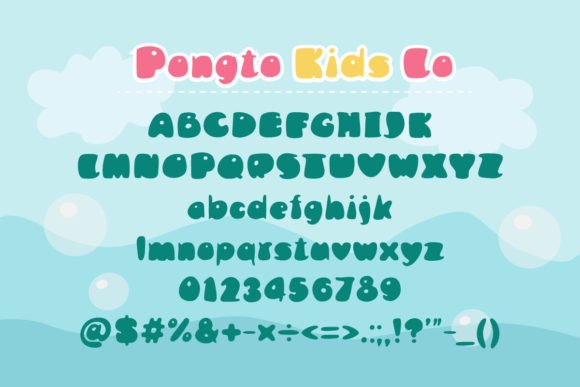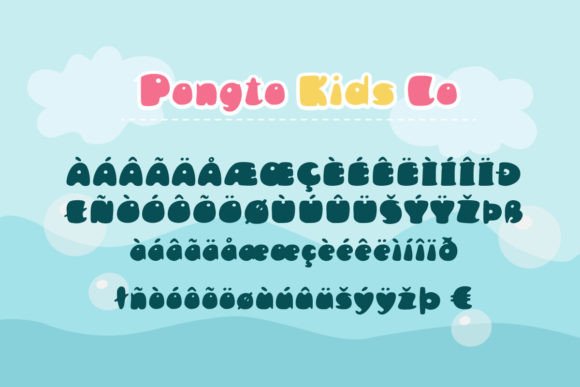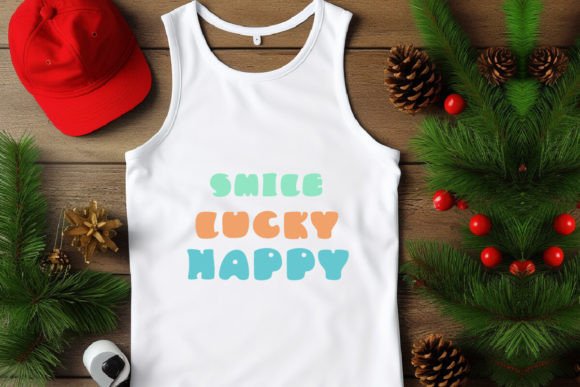
Introduction to Pongto Kids Lo Font
Who hasn’t been stuck on a design project, staring at a blank page, waiting for that perfect spark to strike? For designers, the quest for the perfect font can be a daunting task. But what if you stumbled upon a font that was not only visually stunning but also incredibly versatile? Enter the Pongto Kids Lo Font – a cool, cute, and fun display font that’s sure to bring a smile to your face.
Whether you’re working on a greeting card, a children’s theme design, or a logo, Pongto Kids Lo Font is the perfect addition to your design resource arsenal. With its transparent background and high-quality design, this font is a game-changer for any creative project. And the best part? It’s available for free download, making it an invaluable resource for designers of all levels.
Pongto Kids Lo Font
- High-quality, free font designed specifically for kids and creative projects.
- Unique characteristics include playful letterforms and whimsical details, perfect for children’s books, educational materials, and other creative projects.
Honest Review: Pongto Kids Lo Font
I recently came across the Pongto Kids Lo Font, and I must say it’s a great addition to any designer’s collection. This font is perfect for creating a playful and fun atmosphere in your creative project.
What works well: ✨ The font has a high quality and modern design that makes it suitable for a wide range of applications, from children’s books to branding materials. The transparent background also makes it easy to use and customize. I also appreciate that it’s available for free download, making it a great resource for designers on a budget.
Some of the key features of the Pongto Kids Lo Font include:
- High quality and modern design
- Perfect for children’s books, branding materials, and other creative projects
⚠️ However, I do find that the font may not be suitable for formal or professional applications, as it has a playful and casual tone. Additionally, some designers may find the font to be too bold or eye-catching, which may not be desirable in all situations.
Overall, I’m impressed with the Pongto Kids Lo Font, and I would definitely recommend it to designers looking for a fun and modern font for their creative project.
Pongto Kids Lo Font is a free design resource ideal for creative projects requiring a playful, kid-friendly font. This high-quality font features a transparent background, making it easy to integrate into various design elements.
To maximize the use of Pongto Kids Lo Font, try combining it with other design elements, such as colorful illustrations or fun graphics.
Some common use cases for Pongto Kids Lo Font include:
- Designing children’s party invitations or banners
- Creating educational materials, such as worksheets or posters
- Developing branding for kids’ products or services